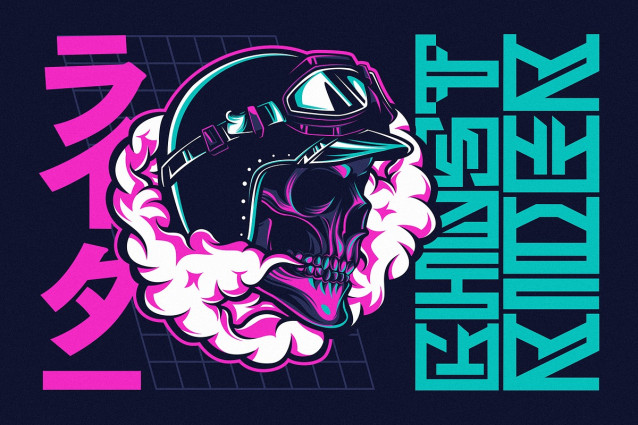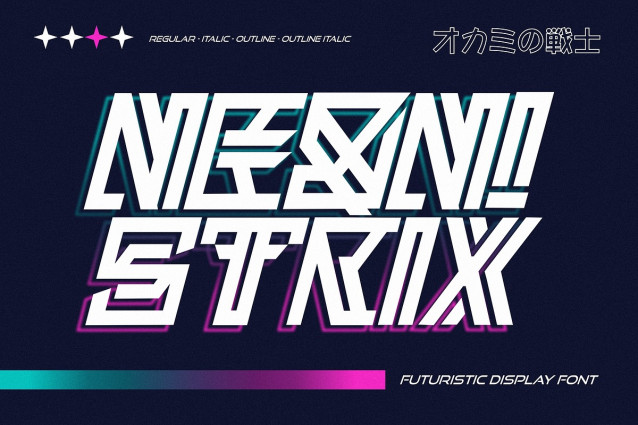
Neon Strix Font
Neon Strix Font is a cutting-edge futuristic display font that electrifies your designs with its vibrant and dynamic style. Perfect for modern, tech-inspired projects, this font comes in four versatile styles: Regular, Italic, Outline, and Outline Italic.
Versatile Futurism: Neon Strix offers a bold, futuristic look that stands out in any design. Whether you’re working on a sci-fi project, tech branding, or digital interfaces, this font adapts effortlessly with its four distinct styles, giving you the flexibility to create striking visuals.
Dynamic Aesthetic: Neon Strix captures the essence of futuristic design with sharp angles and sleek curves. The Regular and Italic styles provide a strong foundation. In contrast, the Outline and Outline Italic styles add depth and sophistication, perfect for logos, posters, and high-impact headlines.
Innovative Design: Neon Strix isn’t just a font; it’s a tool for innovation. Its unique aesthetic is designed to push the boundaries of conventional design, making it ideal for projects that want to convey a sense of cutting-edge technology and forward-thinking creativity.
High Impact: Each style of Neon Strix is crafted to make a bold statement. The regular style delivers a solid, commanding presence, while the outline styles add a futuristic flair that is perfect for neon effects, digital displays, and any design that needs a modern edge.
Elevate your projects with Neon Strix, the futuristic display font that combines versatility, innovation, and high-impact design. Whether you choose Regular, Italic, Outline, or Outline Italic, Neon Strix ensures your text shines with a vibrant, modern energy.